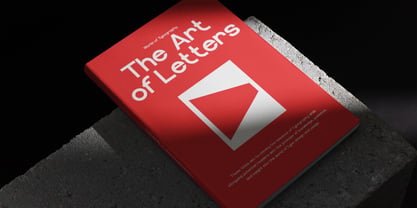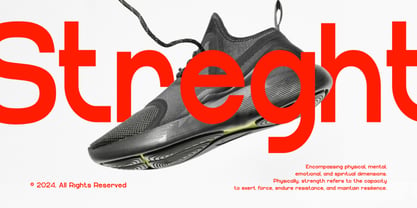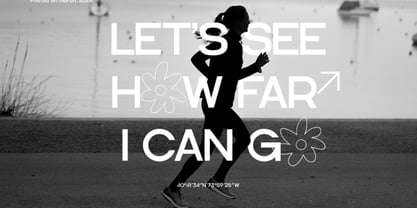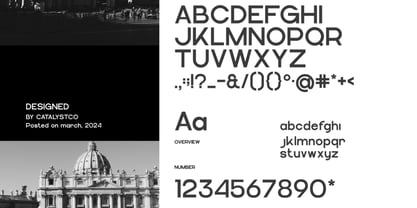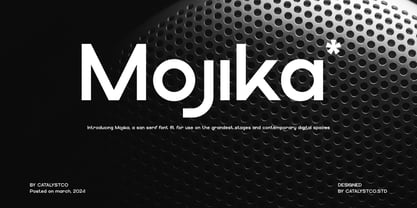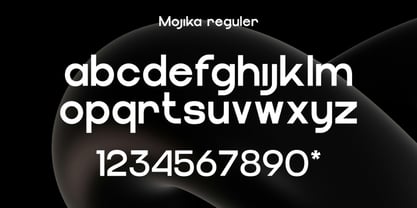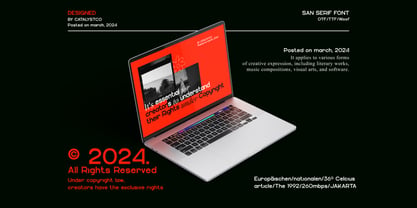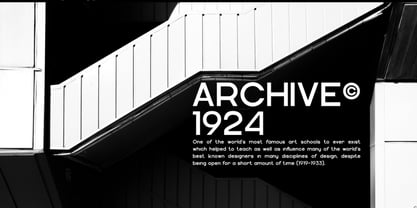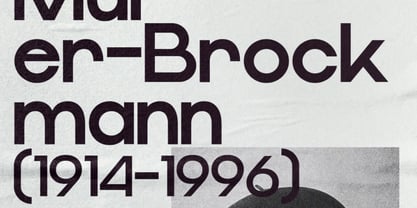
Mojika
Mojika is a modern geometric sans serif typeface designed for powerful visual impact and contemporary digital presence. Built with clean structural forms, balanced proportions, and smooth curves, Mojika delivers a bold yet refined personality suitable for large-scale headlines and professional branding systems. Mojika is highly suitable for tech startups, corporate branding, digital platforms, product packaging, editorial layouts, website headers, presentation slides, and modern advertising campaigns. Its strong geometric foundation and clean aesthetic make it ideal for brands that want to communicate clarity, confidence, and forward-thinking innovation across digital and print media.